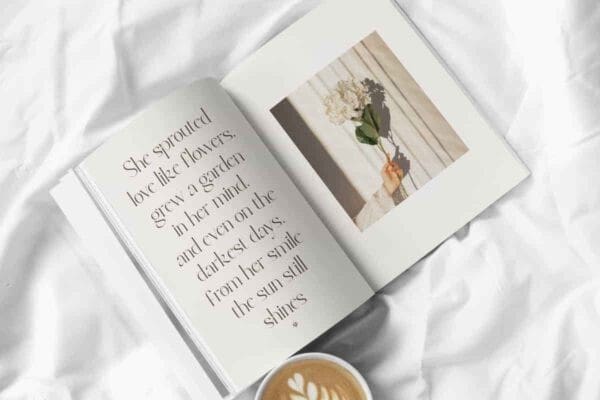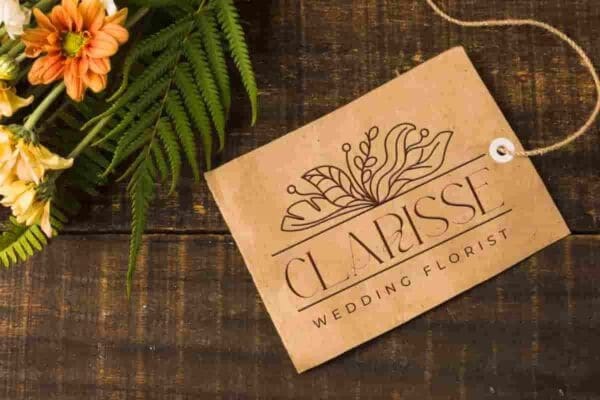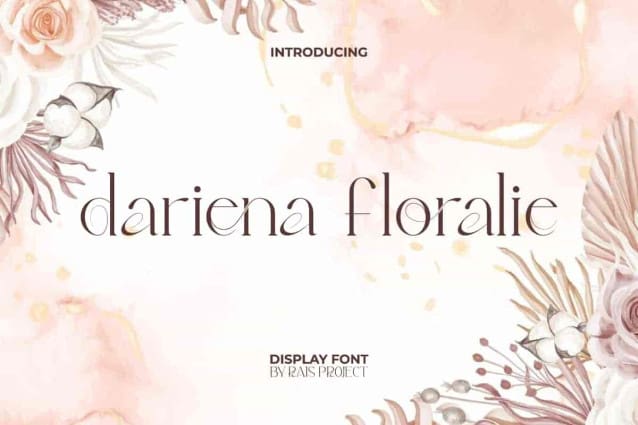
Dariena Font
Dariena Floralie Font is an adorable stunning aesthetic serif display font, created by RaisProject. It will look good on invitation, stationery, poster, custom design, product packaging, quotes, signage, brand image, advertisement, label, marketing material, website page, and more!